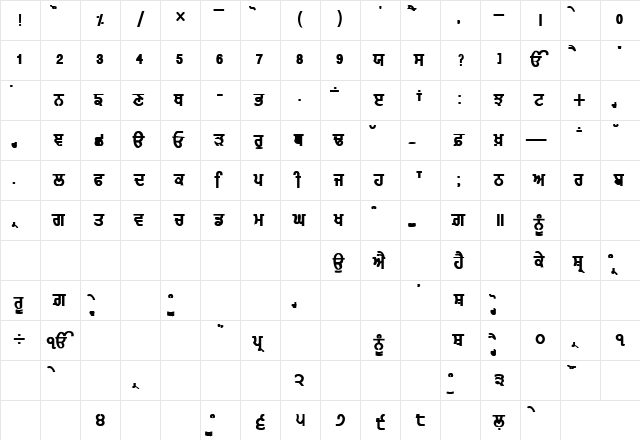
GurmukhiLys 010 Bold
Design Context for GurmukhiLys 010 Typeface
GurmukhiLys 010 is a composed and adaptable typeface that performs quietly and consistently across a wide range of design contexts. The heavy weight commands attention and anchors typographic hierarchies.